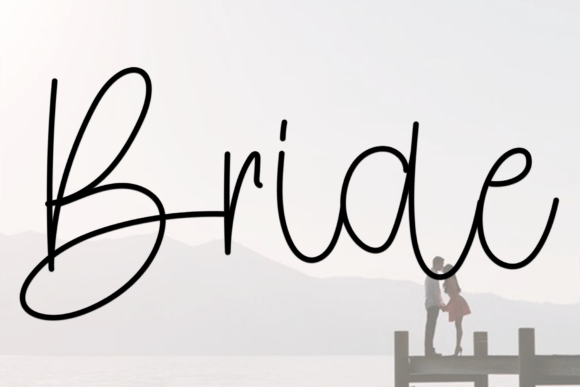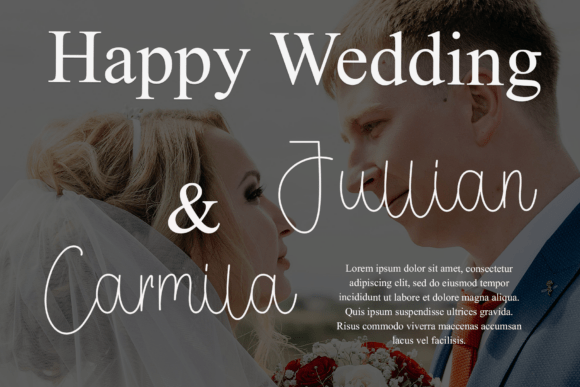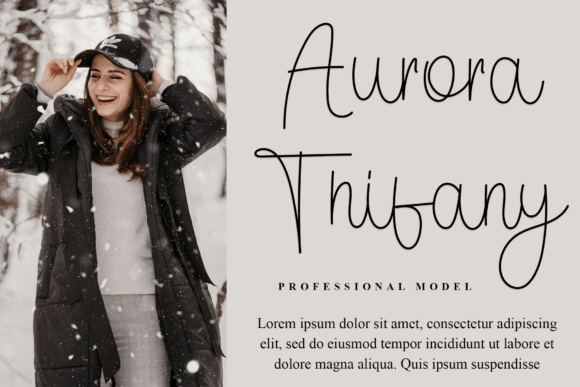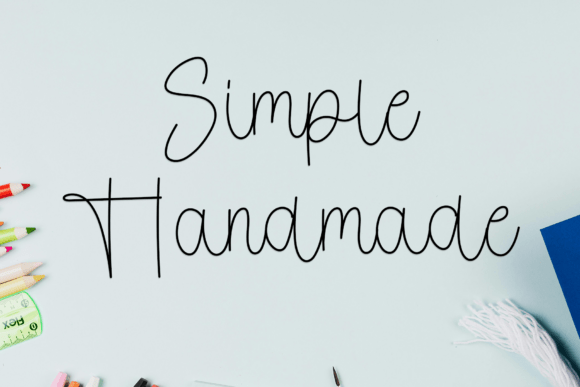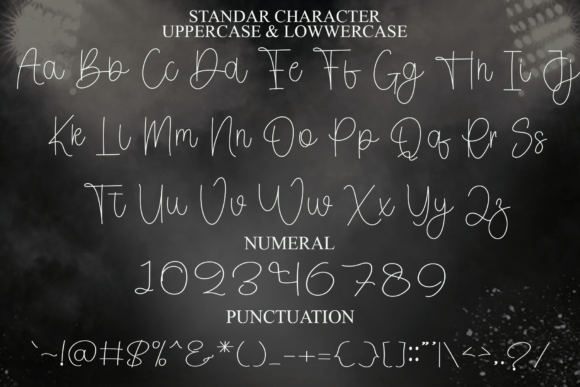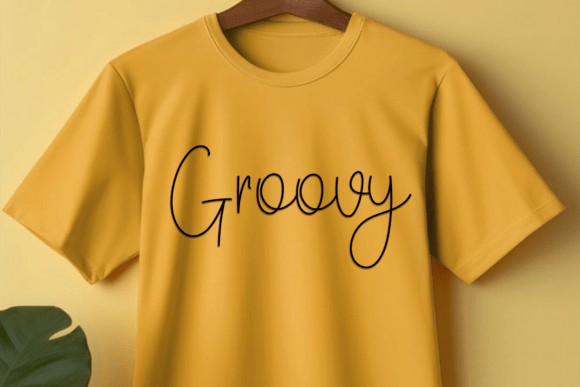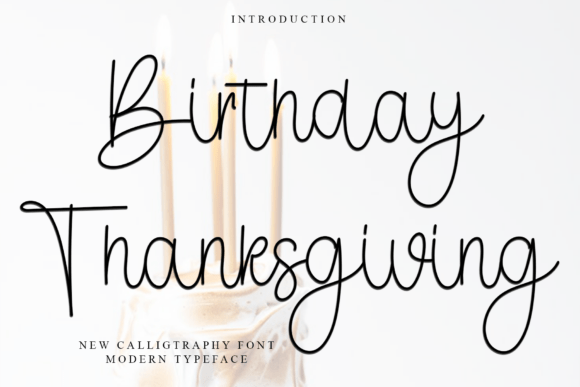
Introducing the Birthday Thanksgiving Font: A Unique and Versatile Design Element
Are you looking for a font that can add a touch of elegance and whimsy to your design projects? Look no further than the Birthday Thanksgiving Font. This beautiful and eye-catching font is designed with a soft, unique touch that sets it apart from other fonts. Its distinctive strokes give it a special character, making it meaningful and versatile for future use.
What Makes the Birthday Thanksgiving Font Special?
The Birthday Thanksgiving Font is a one-of-a-kind design element that can elevate your designs to the next level. Here are some of its key features:
- Unique and Eye-Catching Design: The font’s soft and unique touch makes it stand out from other fonts. Its distinctive strokes give it a special character that can add a touch of elegance and whimsy to your designs.
- Versatile and Meaningful: The font’s design is not only aesthetically pleasing but also meaningful. Its unique strokes and characters make it perfect for a wide range of design projects, from crafts to digital designs.
- Wide Range of Characters: The font comes with a wide range of characters, making it perfect for design projects that require a variety of typography. Whether you’re working on a craft project or a digital design, this font has got you covered.
The Birthday Thanksgiving Font is perfect for designers and crafters who want to add a touch of elegance and whimsy to their projects. Here are some ways you can use this font:
- Digital Designs: Use the font to create stunning digital designs, such as social media graphics, blog posts, and website headers.
- Crafts: Add a personal touch to your craft projects, such as handmade cards, gift tags, and scrapbooking.
- Signs and Banners: Use the font to create eye-catching signs and banners for events, parties, and promotions.
- Branding and Packaging: Use the font to create a unique and memorable brand identity for your business or product.
Why Choose the Birthday Thanksgiving Font?
Here are some reasons why you should choose the Birthday Thanksgiving Font for your design projects:
- Unique and Original: The font is one-of-a-kind, making it a great way to stand out from the crowd.
- High-Quality Design: The font is designed with high-quality and attention to detail, ensuring that it looks great in any design project.
The Birthday Thanksgiving Font is a beautiful and eye-catching font that can add a touch of elegance and whimsy to your design projects. Its unique and distinctive strokes make it meaningful and versatile for future use. With its wide range of characters and compatibility with various applications, this font is perfect for designers and crafters who want to take their designs to the next level. Whether you’re working on a digital design or a craft project, the Birthday Thanksgiving Font is a great choice.